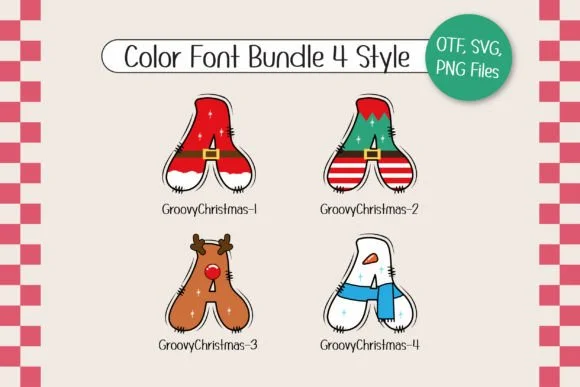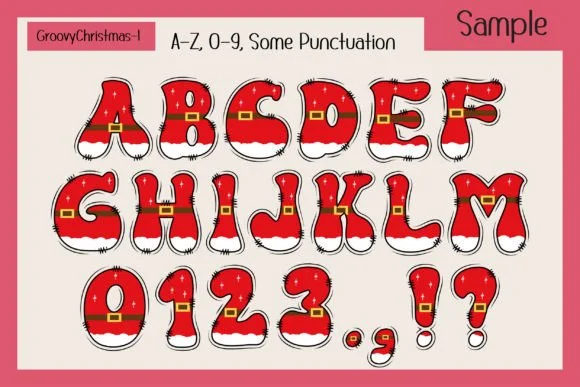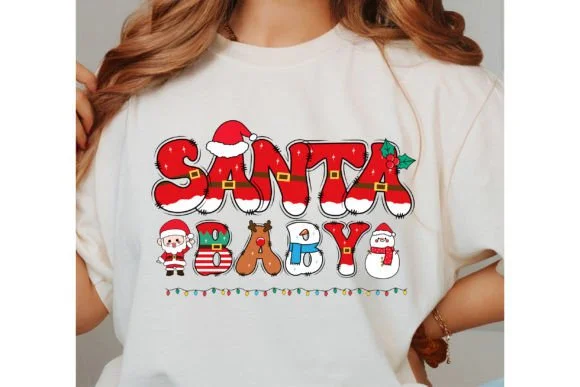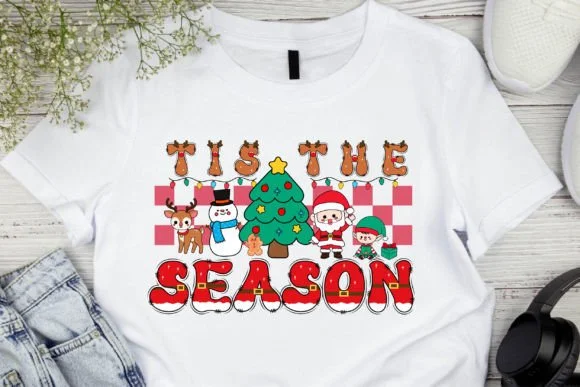
Groovy Christmas Font
This funky font is perfect for retro Christmas parties, vintage holiday advertisements, 70s-themed Christmas events, psychedelic holiday decorations, disco Christmas celebrations, funky seasonal branding, retro Christmas merchandise, vintage holiday posters, groovy Christmas music festivals, and nostalgic seasonal marketing campaigns.
Groovy Christmas Font is exciting because it captures the vibrant energy and free-spirited atmosphere of the 1970s, infusing Christmas celebrations with the cool, laid-back vibe of the groovy era through its distinctively retro letterforms. The font features bold, flowing characters with curved edges and psychedelic influences that reflect the decade's fascination with peace, love, and good vibes, incorporating swirling details and organic shapes that mirror the iconic design aesthetics of the groovy generation. Each letter showcases the confident boldness and creative experimentation that defined 70s typography, while maintaining the festive spirit that makes Christmas special. The design perfectly balances nostalgic charm with holiday joy, creating typography that feels both authentically retro and timelessly fun, perfect for bringing a unique twist to traditional Christmas messaging.
The Groovy Christmas Font family includes retro-inspired variations: Regular, Bold, Light, Psychedelic, and Disco versions. The collection features special vintage elements including swirl accents, peace sign details, flower power flourishes, and groovy ornaments. Additional components include retro borders, vintage frames, psychedelic decorations, and funky ornamental designs that enhance the font's groovy Christmas appeal and create cohesive 70s-themed holiday experiences.
Event planners and retro enthusiasts will find Groovy Christmas Font to be an exceptional choice for creating memorable vintage holiday communications that transport audiences back to the groovy era of peace, love, and Christmas cheer. This authentically styled font transforms ordinary holiday messaging into far-out expressions that resonate with audiences who appreciate the unique cultural aesthetic of the 1970s.
The typeface includes comprehensive character support with authentic retro styling that maintains excellent readability while conveying the cool, relaxed spirit of groovy Christmas celebrations. The font's bold design ensures strong visual impact across all applications, from intimate party invitations to large festival banners.
Perfect for vintage Christmas events, retro holiday brands, 70s-themed celebrations, and nostalgic seasonal marketing, this font delivers authentic groovy impact that communicates peace, love, and the uniquely cool spirit of 70s Christmas through typography that's totally far-out and wonderfully festive.